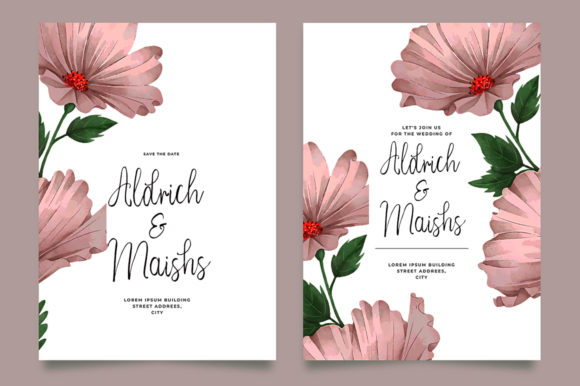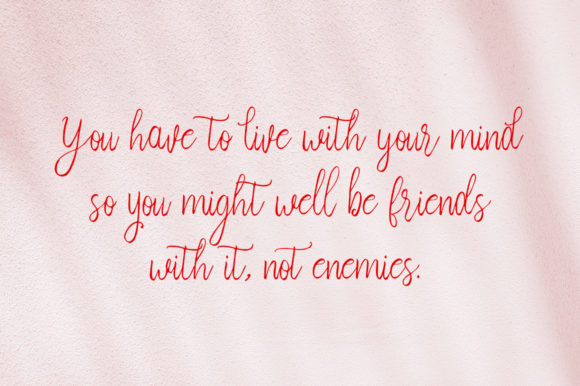
Rafella Font
db-ku.com - Script & Handwritten -- Want to create awesome typography creations, choose Rafella. It’s hand brush font will blow you away!